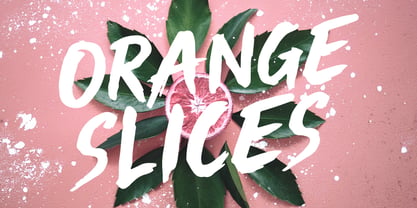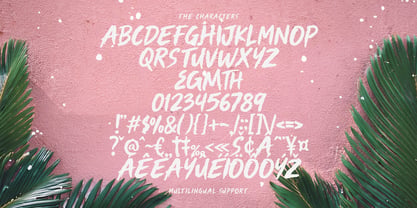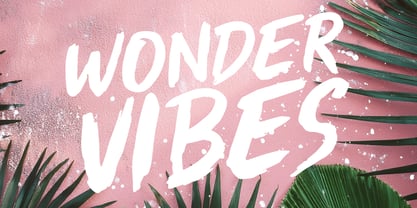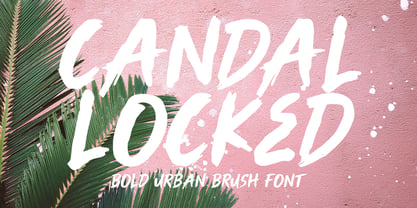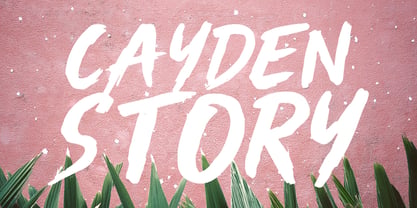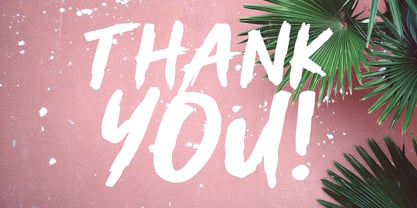
MC Candal Locked
by Maulana Creative
The MC Candal Locked Font Family was designed by Gilang Maulana and published by Maulana Creative. MC Candal Locked contains 1 styles. More about this family
Candal Locked is a high-energy, hand-drawn brush font designed to make a statement. With its aggressive strokes and authentic dry-brush textures, this font captures a raw, street-style aesthetic. It is perfectly suited for bold branding, streetwear apparel, music posters, and summer-themed social media graphics. Whether you are aiming for a gritty urban look or a vibrant tropical splash, Candal Locked delivers a powerful, fearless personality to any creative project.
Designers: Gilang Maulana
Foundry: Maulana Creative